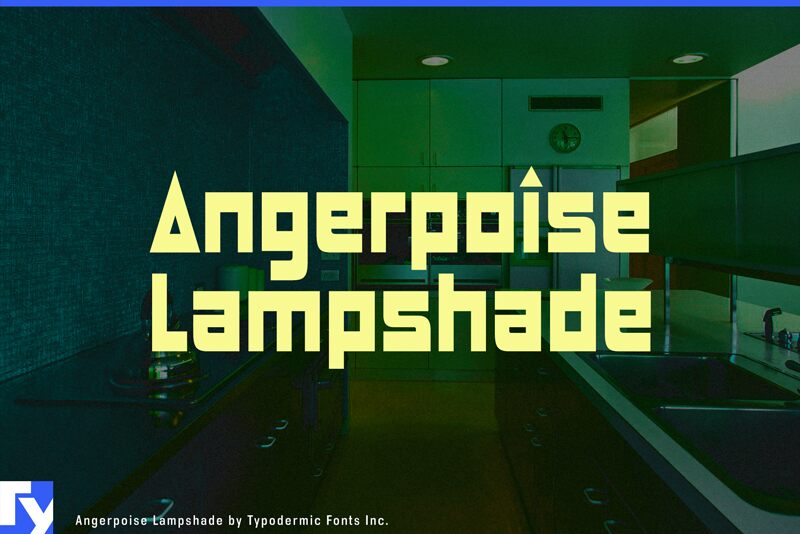
Angerpoise Lampshade, a captivating creation from Typodermic Fonts, is a bold and angular typeface that defies convention. This display font is a mesmerizing fusion of 20th-century sign typography and the distinct aesthetics of late 1980s computer demos, resulting in an otherworldly, cyberpunk-inspired design.
With its striking angular forms and a bold, attention-grabbing presence, Angerpoise Lampshade is sure to leave a lasting impression. This font's unique character perfectly captures the essence of an alternate universe, where Art Deco and cyberpunk sensibilities collide in a visually striking manner.